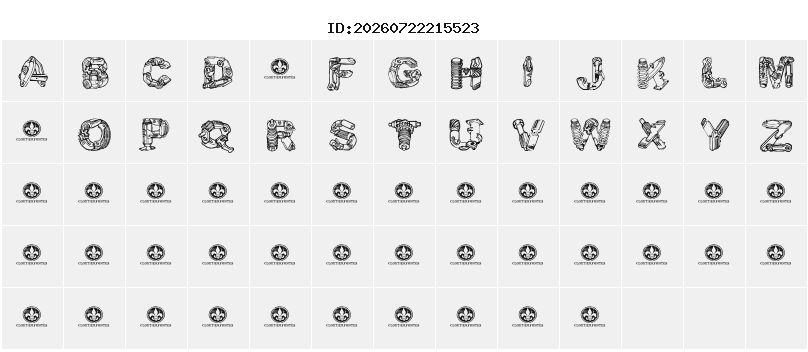
• Font Name: MotorPiecesDEMO
• Designer: Steve Cloutier
• Manufacturer: CloutierFontes
• Description: MotorPieces Regular is a font by CloutierFontes, designed by Steve Cloutier in 2012.